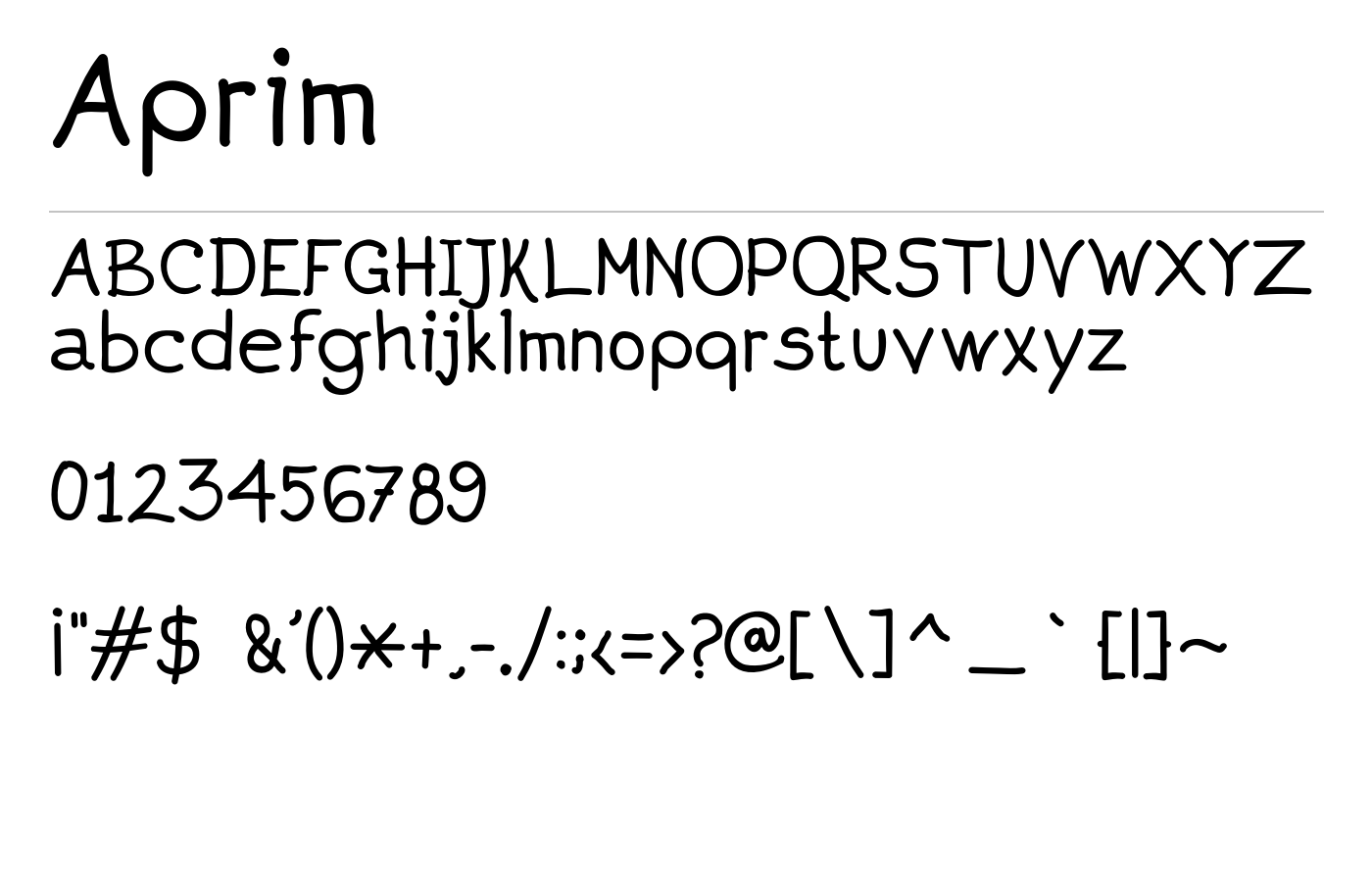
Aprim is a playful, hand-drawn sans serif font with a casual and friendly feel. Its irregular, slightly rounded letterforms and moderate x-height give it an approachable, informal charm, making it ideal for creative projects, children’s designs, and lighthearted branding. This font works well in headlines, logos, and packaging where a warm, personal touch is desired.
Aprim Font
About Aprim Font